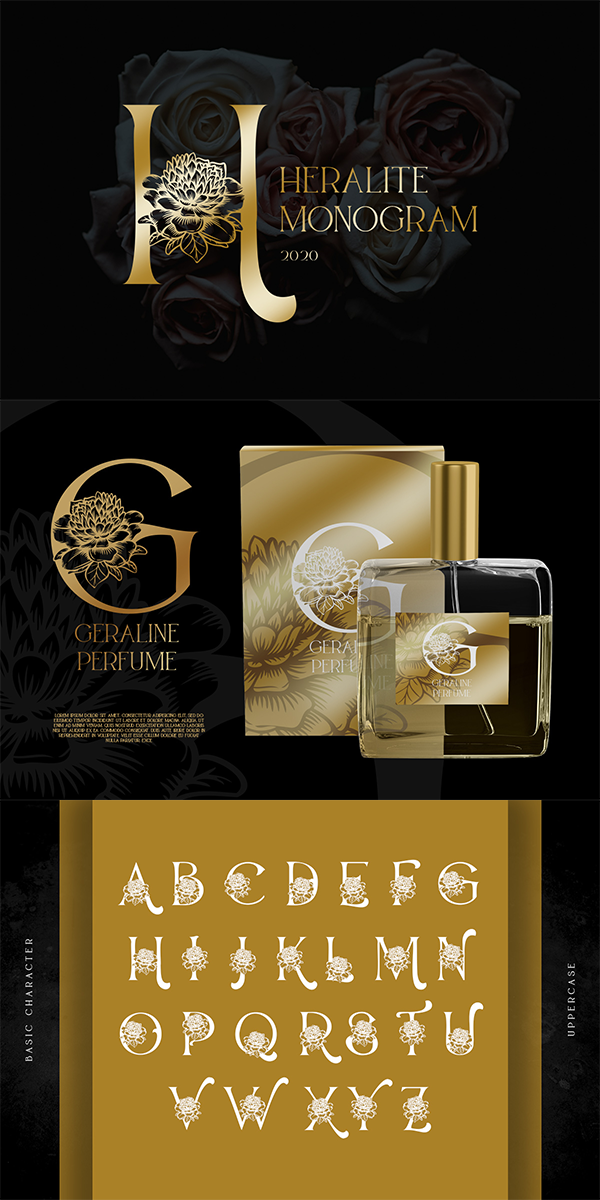
Heralite Monogram Font
About Heralite Monogram
Heralite Monogram is a beautiful decorative font, featuring elegant flowers. Get inspired by its authentic feel and use it to create gorgeous wedding invitations, lovely stationary art, eye-catching social media posts, mugs, printed products, poster, branding, logo, and cute greeting cards. The font includes Multilingual Option to reach a global audience. See the previews above to get some inspiration on how you can use them.